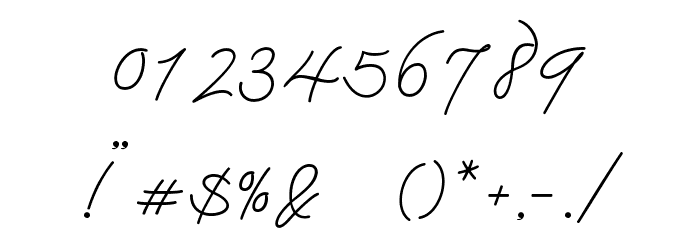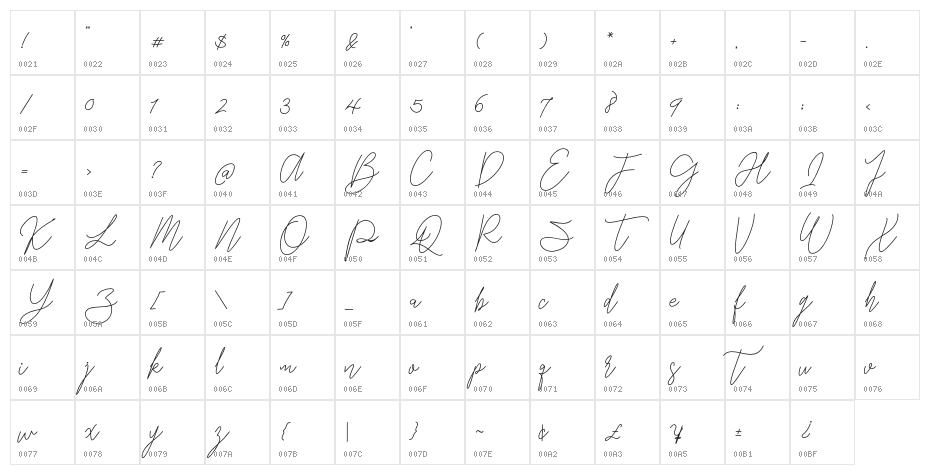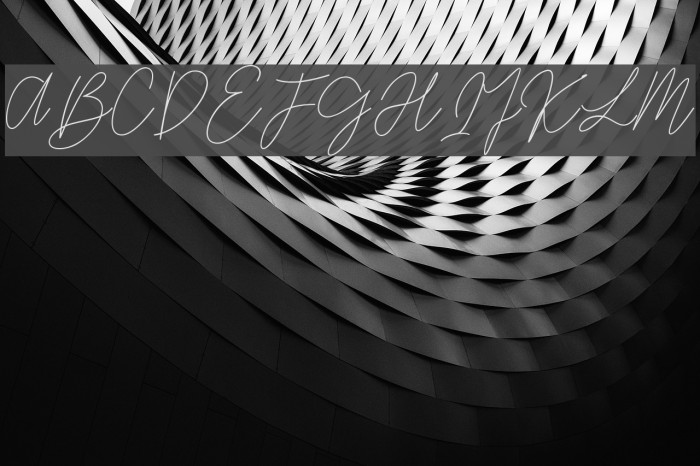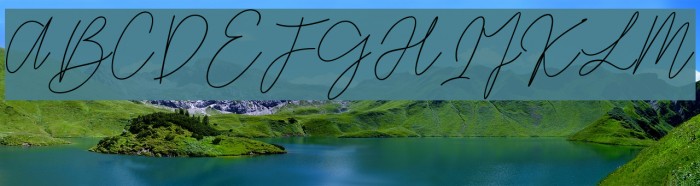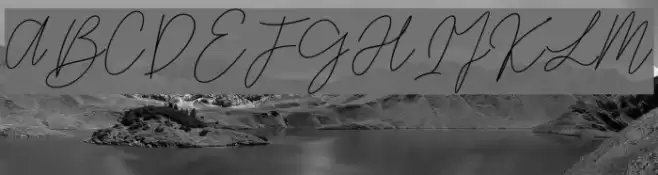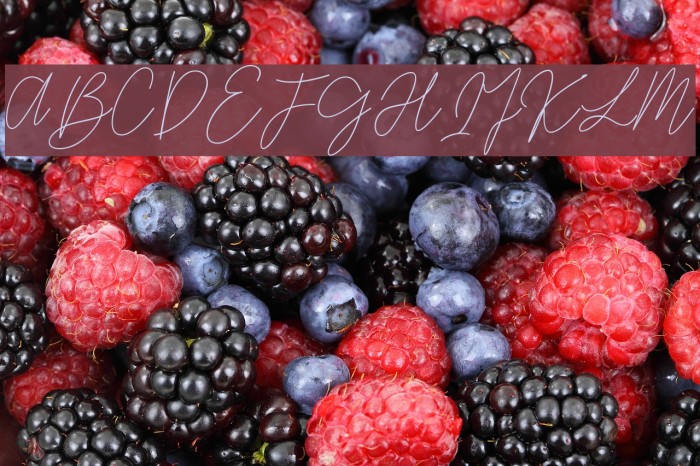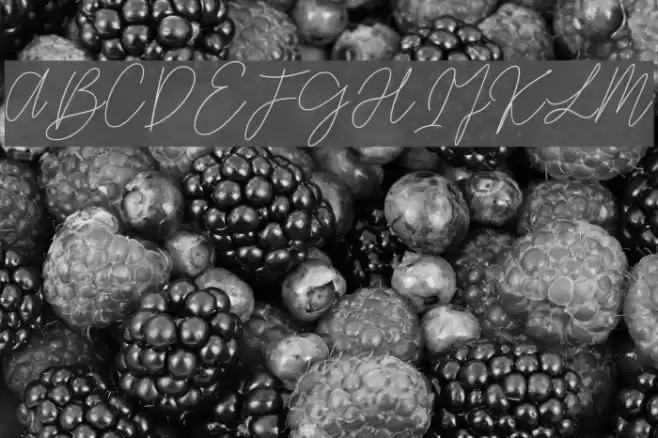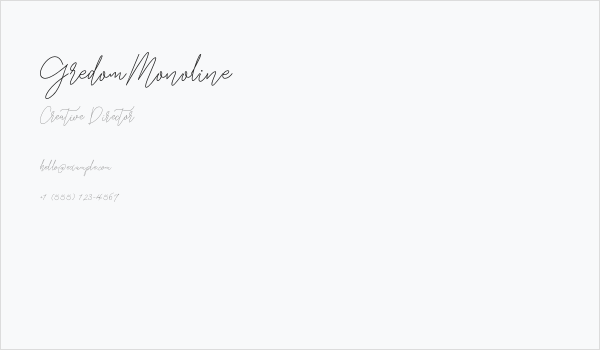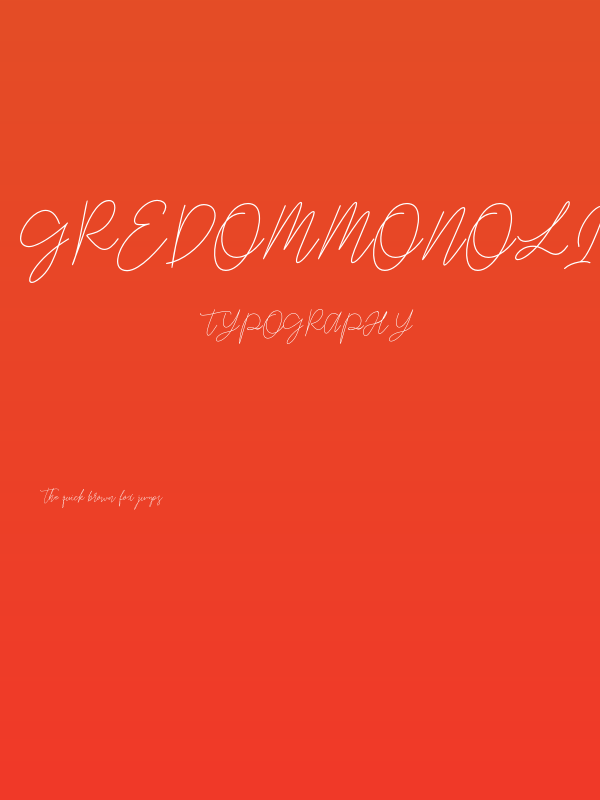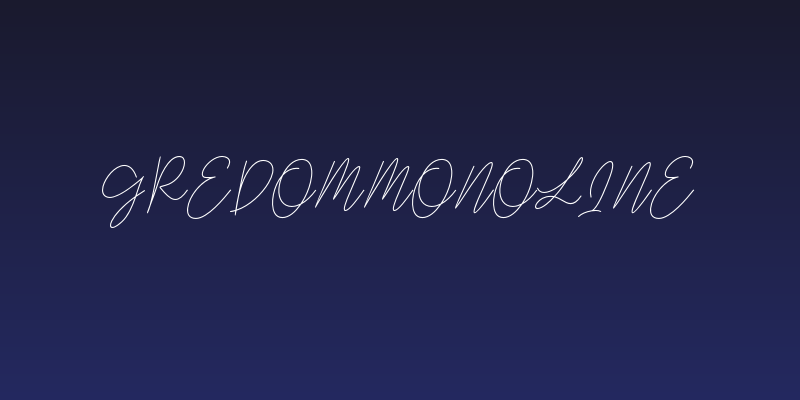
GredomMonoline Font
GredomMonoline Description
This font exhibits a delicate and elegant monoline script style, characterized by its fluid, continuous strokes that mimic the flow of handwriting. The uppercase letters are slightly more structured, maintaining a consistent height, while the lowercase letters display a charming cursive flair with loops and swirls. The numerals are clear and legible, maintaining the same monoline thickness as the letters. Special characters are thoughtfully designed to complement the overall aesthetic, ensuring a cohesive look. This font's graceful curves and consistent line weight make it suitable for projects that require a personal touch or a sophisticated appearance.
| Proposed Projects | Ideal for wedding invitations, greeting cards, personal branding, and elegant logo designs. |